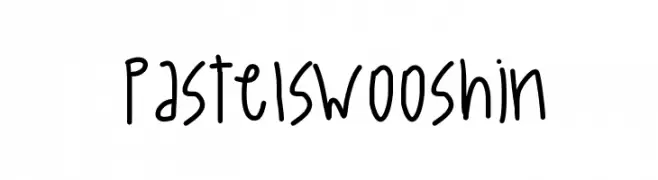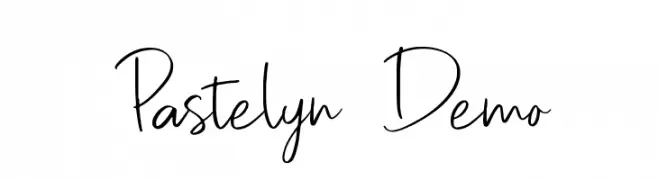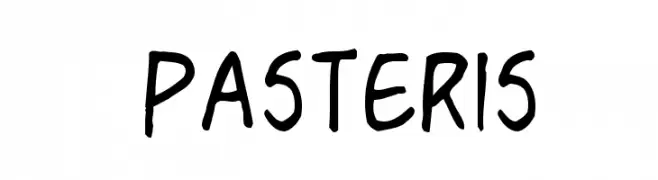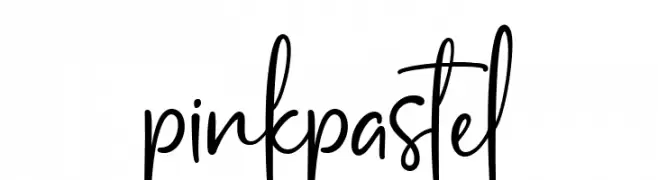
• pastelRegular
• PastelRegular
A bold, brush-style font with a playful and energetic vibe.
• PastelSkies
A playful handwritten font with whimsical, rounded strokes and decorative elements.
• PastelSwooshin
• Pastelyn Demo
A playful handwritten font with flowing, interconnected strokes and varied line thickness.
• PastelynDemo
A playful, whimsical handwritten font with flowing, interconnected letterforms.
• Pasteris
A playful, casual handwritten font with dynamic strokes and an informal charm.
• Pastern
A playful, bold font with a 3D shadow effect and rounded, irregular characters.
• PFS Pastel Feather
A playful, hand-drawn font with thin, elongated characters.
• pink pastel
A playful, whimsical handwritten font with flowing, interconnected letterforms.